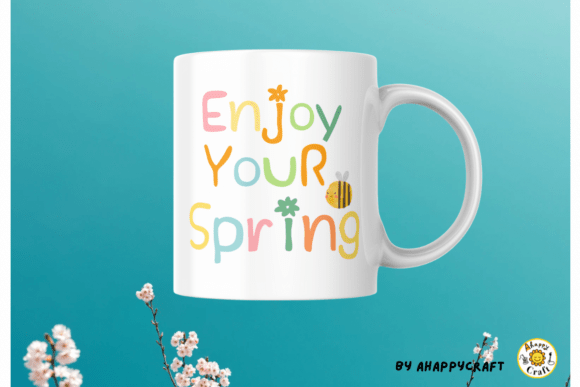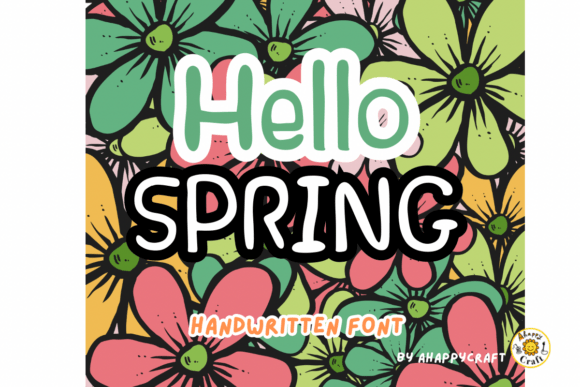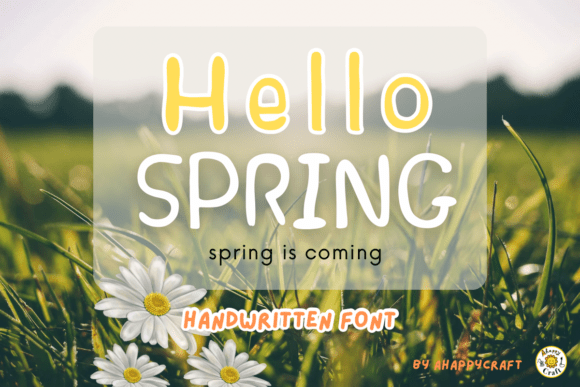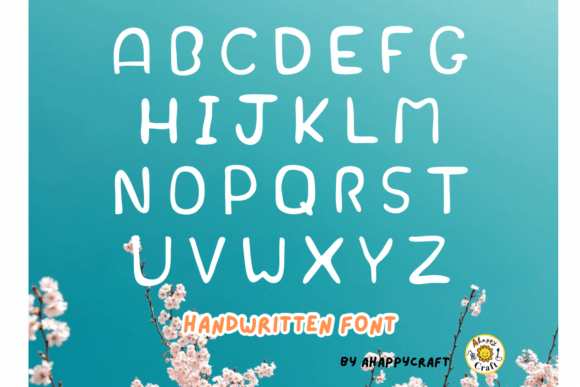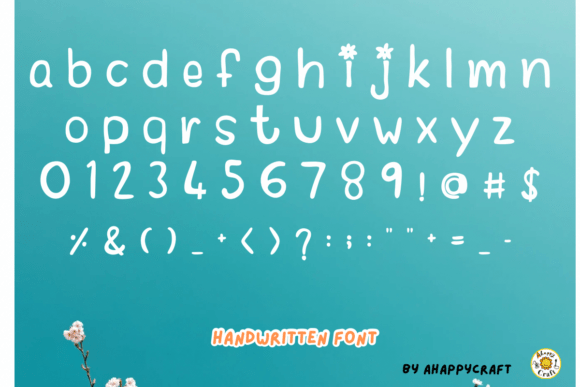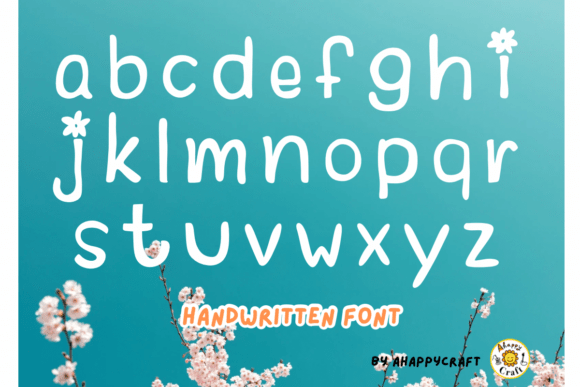
Spring into Creativity with the Hello Spring Font
As I sit with a blank notebook and a pen, waiting for inspiration to strike, I often find myself doodling little flowers and leaves. It’s a moment of pure joy, where the world slows down, and I’m fully present in the creative process. And it’s exactly this feeling that the Hello Spring Font captures – a sense of playfulness and whimsy that’s perfect for spring-themed designs.
The Hello Spring Font is a delightful, handwritten typeface that’s inspired by hand-drawn doodles. With its casual, carefree feel, it’s ideal for adding a soft, girly touch to any project. From greeting cards to planners, stickers, and logos, this font is a valuable addition to any designer’s toolkit.
Whether you’re a crafter, small business owner, or simply a creative at heart, the Hello Spring Font is a must-have for anyone who loves cute and cozy vibes. Its floral fun and lighthearted feel make it a perfect choice for spring-inspired designs that exude joy and warmth.
Hello Spring Font Key Features
- Font Family: Hello Spring is a sans-serif font family designed for modern and clean typography.
- Character Count: The font family includes a wide range of characters, including Latin, Cyrillic, and Greek alphabets, as well as punctuation and symbols.
- Weight and Style: Available in 6 weights (Thin, Light, Regular, Medium, Bold, Black) and 3 styles (Regular, Italic, Oblique).
- Unique Characteristics: Hello Spring features a unique blend of modern and traditional design elements, with subtle rounded edges and geometric shapes.
Hello Spring Font Review
Hello Spring Font is a cheerful and elegant font that’s perfect for spring-themed designs. It works well ✨ in creating a lively atmosphere and adding a touch of whimsy to your projects. The font’s unique combination of rounded and pointed shapes makes it visually appealing and eye-catching.
The font’s flexibility ✨ in terms of size and color makes it easy to use in various design contexts. Whether you’re creating a greeting card, a social media post, or a website header, Hello Spring Font is a great choice. Its legibility ✨ is also noteworthy, making it suitable for both digital and print materials.
- ⚠️ Limited character set: Hello Spring Font only includes a limited set of characters, which might make it less suitable for longer texts or complex designs.
- ⚠️ Not ideal for formal designs: The font’s playful and whimsical nature makes it less suitable for formal or professional designs, where a more traditional or serious font is preferred.
Overall, Hello Spring Font is a great choice for designers looking to add a touch of springtime magic to their projects. While it has some limitations, its unique charm and versatility make it a worthwhile addition to any designer’s toolkit.
For best results, use the font in a light to medium color scheme to emphasize the playful and whimsical feel of the font.
For best results, use the font in combination with other playful and whimsical elements, such as floral patterns and pastel colors.
For best results, use the font in a simple and clean design to let the font be the focal point.
The “Hello Spring Font” is ideal for:
Spring-themed designs, such as Easter cards and garden invitations.
Children’s party invitations and decorations.
Playful and whimsical branding and marketing materials.
Adding a touch of personality to digital products, such as e-books and software interfaces.